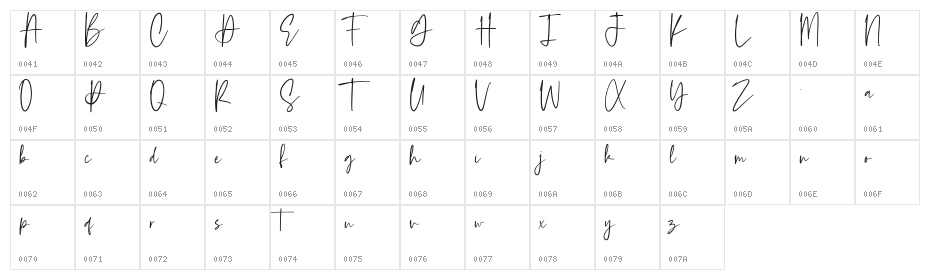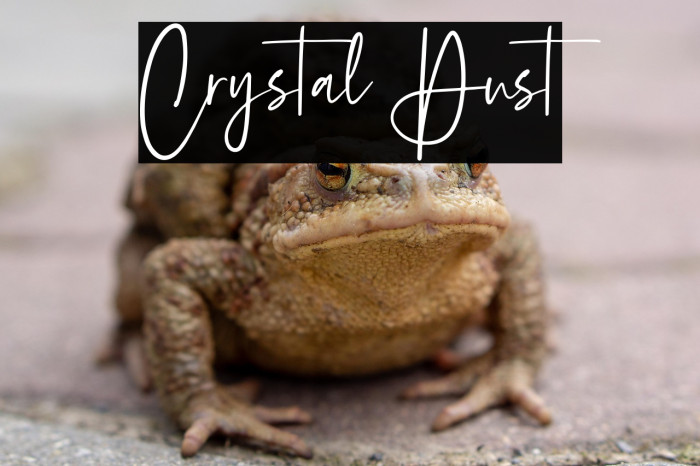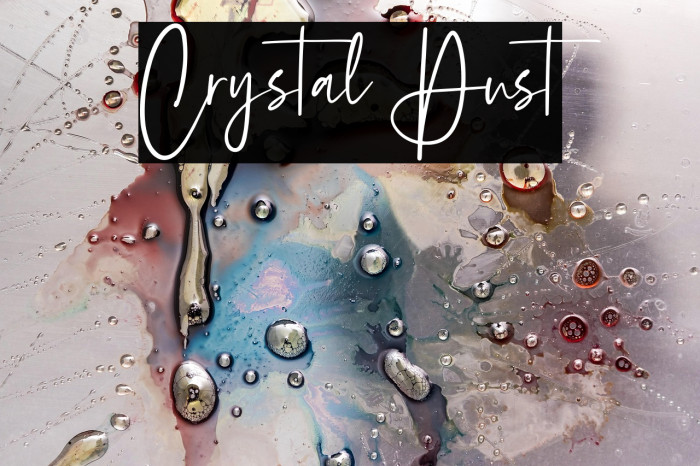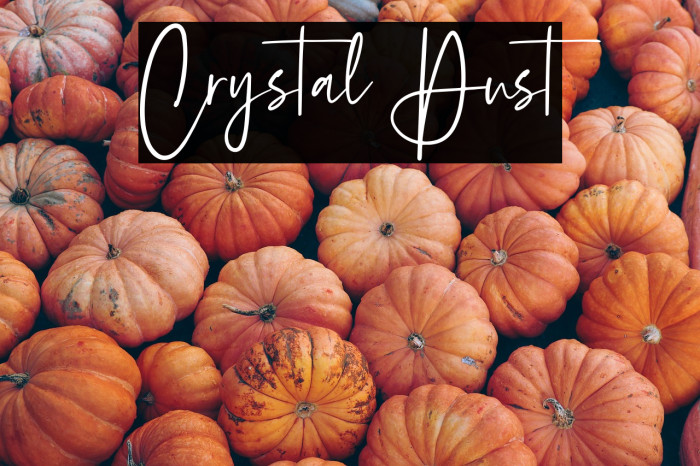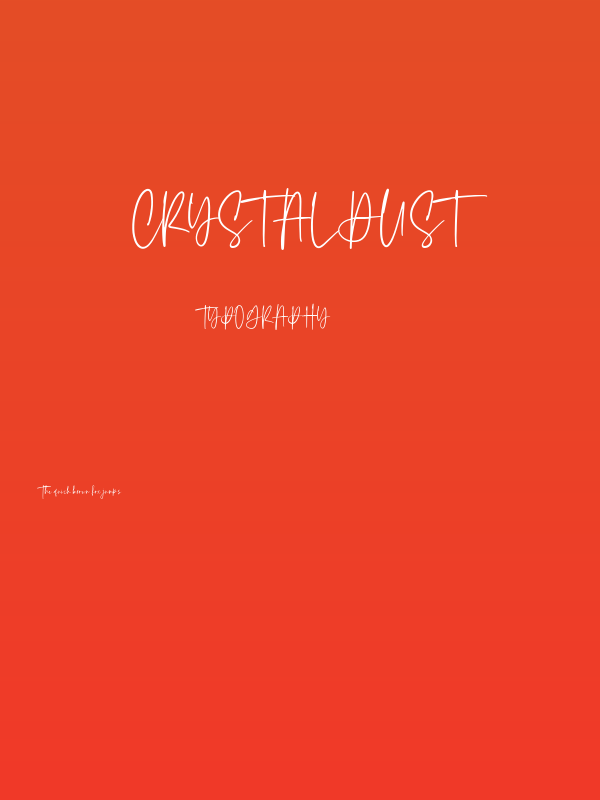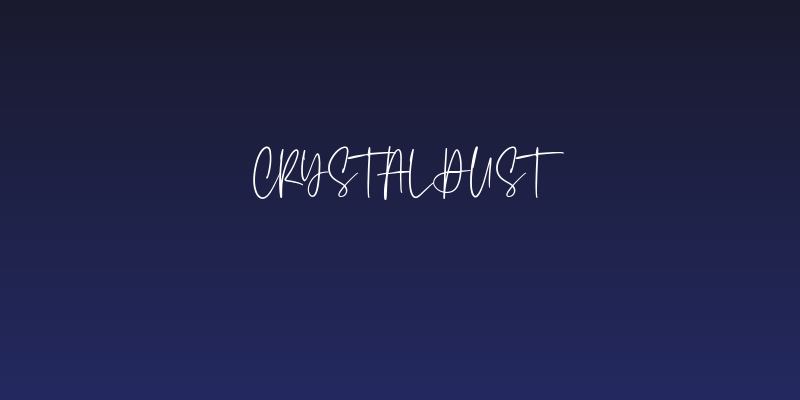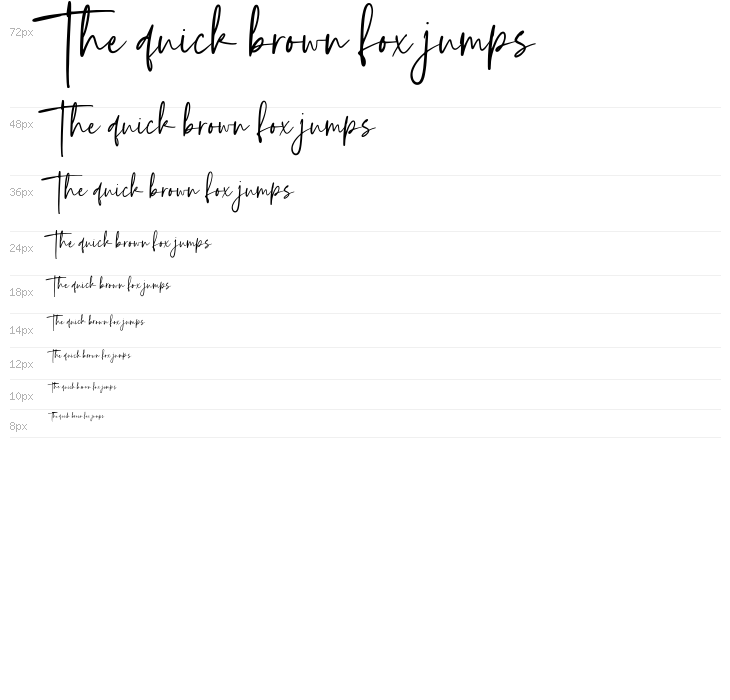
Crystal Dust Font
Crystal Dust Description
This font exudes a modern and artistic flair, characterized by its flowing, cursive script style. The letters are elegantly elongated with a consistent stroke width, giving it a sleek and sophisticated appearance. The uppercase letters are particularly striking, with their tall, looping ascenders and descenders that add a touch of drama and elegance. The lowercase letters maintain a smooth and connected flow, enhancing the overall fluidity of the font. This script is ideal for creating a sense of elegance and creativity, making it perfect for artistic projects. The spacing between characters is balanced, ensuring readability while maintaining its decorative appeal.
| Proposed Projects | Ideal for wedding invitations, branding, logos, and artistic projects requiring a touch of elegance. |